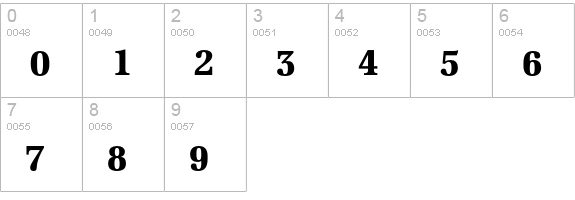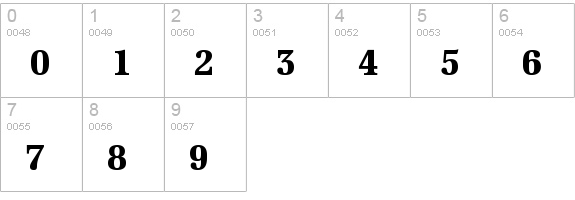
EdisonEF-BoldCondensed Font Details
EdisonEF-BoldCondensed is a bold and condensed font that exudes confidence and modernity. Its sleek and streamlined design makes a strong impact, perfect for titles, headlines, and logos that demand attention. With its clean lines and striking presence, EdisonEF-BoldCondensed brings a touch of sophistication to any design project. The condensed nature of the font allows for more text to be displayed within a limited space, making it an ideal choice for posters, banners, and other promotional materials. This font is not only visually captivating, but it also offers versatility and ease of use. Its bold weight ensures legibility even at smaller sizes, while the condensed format adds a touch of elegance to your typography. Whether you are creating a professional document or a creative masterpiece, EdisonEF-BoldCondensed will elevate your design to new heights. And the best part? EdisonEF-BoldCondensed is available for free download at FontsMarket.com. This means that you can enjoy the benefits of this stunning font without any cost or restrictions. Simply visit FontsMarket.com and unlock the potential of EdisonEF-BoldCondensed in your designs. So why wait? Embrace the power of boldness and elegance with EdisonEF-BoldCondensed. Download it for free today at FontsMarket.com and let your creativity shine.